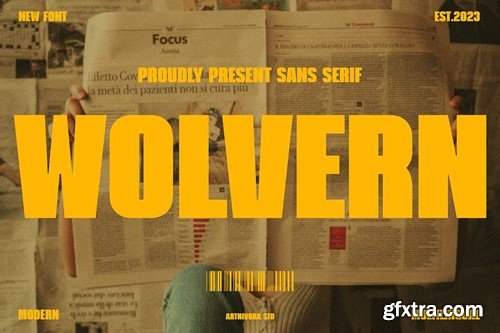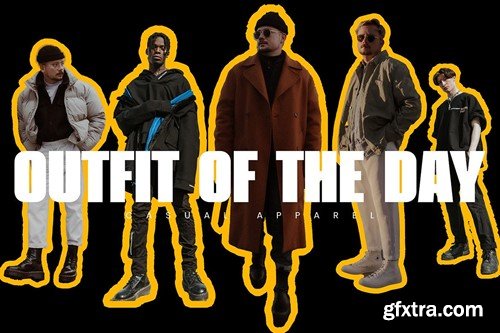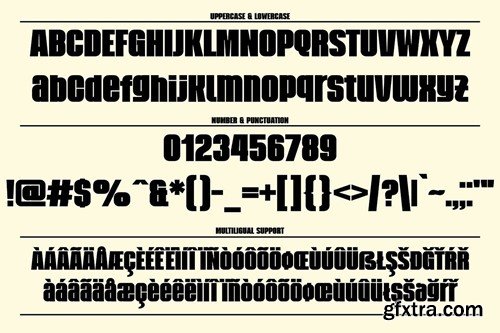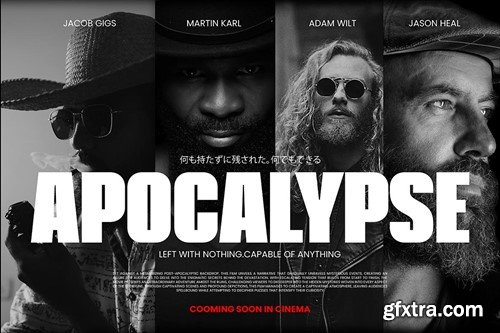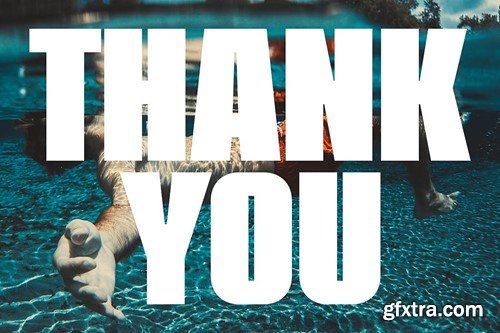
Wolvern - Sans Serif Font 9JHY9PL
Wolvern - Sans Serif Font
Introducing Wolvern, a simple and sans serif font. So perfect for you who needs a typeface for logo designs, magazine, social media, brochure, and many more.
Features
• Uppercase
• Lowercase
• Punctuation
• Numerals
• Multilingual Support